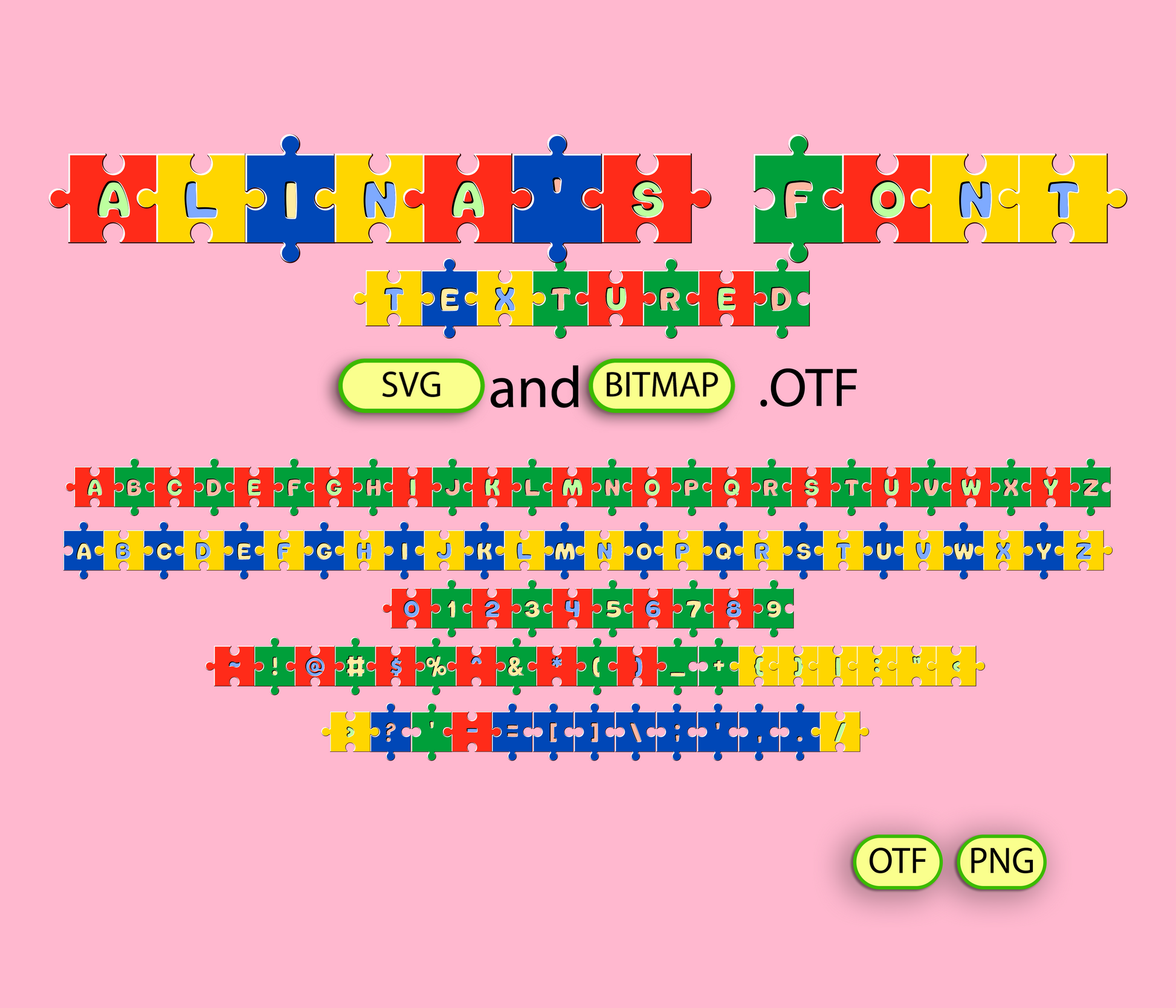
Autism Puzzle Font Textured
Step into the meaningful world of connection pieces with our Autism Puzzle font, capturing the essence of awareness and understanding through distinctive puzzle-inspired letterforms. Perfect for advocates, educators, support organizations, and creative professionals, this font brings the thoughtful, compassionate spirit of acceptance to your projects. Create informative materials, community resources, or digital content with the meaningful symbolism of interlocking puzzle elements in vibrant spectrum colors.
Our Autism Puzzle font features unique, interconnected shapes and puzzle-piece inspired characters reflecting the diversity and connection within the autism community. Ideal for:
- Awareness Campaigns: Create attention-grabbing materials, posters, and banners for advocacy events, educational workshops, and community gatherings
- Support Materials: Perfect for informational brochures, resource guides, and publications that promote understanding and inclusion
- Digital Media: Enhance websites, blogs, and social media with engaging headers and graphics that express commitment to awareness and acceptance
- Educational Content: Add authentic character to teaching materials, presentations, and resources developed for diverse learning styles
- Personal Projects: Bring meaningful symbolism to family celebrations, DIY crafts, and home decor inspired by the spectrum of connection
Our font pays tribute to the meaningful symbolism of connection and diversity, empowering your designs with its vibrant and thoughtful spirit. Whether crafting awareness materials, designing supportive resources, or adding a meaningful touch to personal projects, this font communicates the importance of understanding and acceptance. Ready to inject powerful symbolism into your creations? This font is your key to impactful, meaningful design.